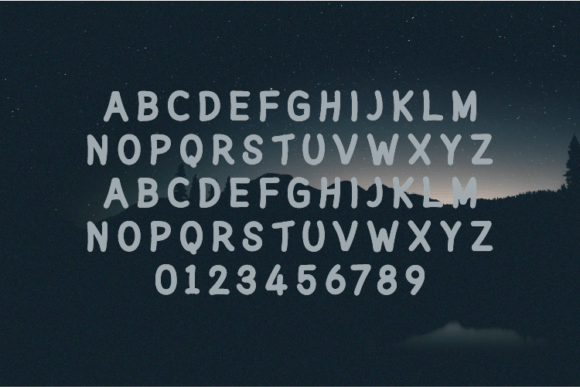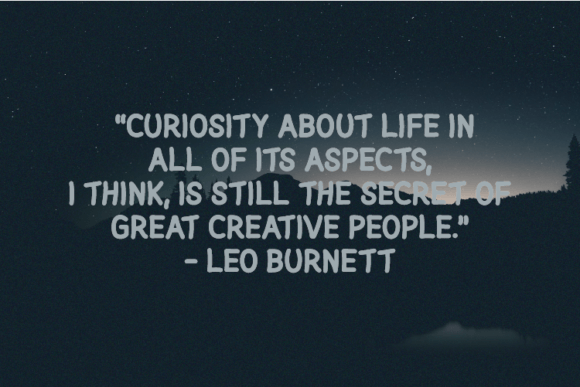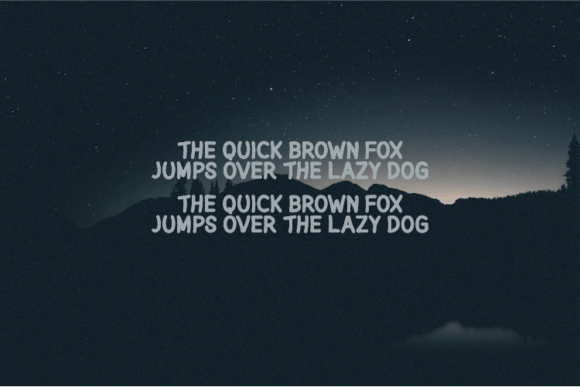
The Euphrosyne Font: A Unique Sans Serif for Creative Projects
I’ll never forget the time I was working on a project, pouring my heart and soul into the design, but struggling to find the perfect font. My client wanted something fresh, yet elegant; something that would make their brand stand out. That’s when I stumbled upon the Euphrosyne font. Its unique, natural sans serif design immediately caught my attention, and I knew I had found what I was looking for. In this article, I’ll share my experience with Euphrosyne, its features, and how to make the most of it in your creative projects.
A Personal Review of Euphrosyne
- ✨ Unique and natural sans serif design
- ✅ No unnecessary node changes, making it truly one-of-a-kind
- 💡 Perfect for quotes, notes, tees, and product design
- 🎨 Highly versatile and adaptable to various design styles
While Euphrosyne is an amazing font, it’s not without its quirks. For instance:
- 🤔 Some users might find the font a bit too simplistic or plain
- ⚠️ Limited availability of stylistic alternates and OpenType features
The Story Behind Euphrosyne
Euphrosyne was designed with the goal of creating a unique, natural sans serif font that would stand out in the world of typography. The designer aimed to preserve the original indentation of each character, making the font truly one-of-a-kind. The result is a font that’s both elegant and playful, perfect for a wide range of creative projects.
| Font Name | Euphrosyne Font |
| Author | Hanna Bie |
Q: What makes Euphrosyne unique?
A: Euphrosyne’s uniqueness lies in its natural sans serif design, created without changing a single node in each character’s indentation.
Q: Is Euphrosyne suitable for body text?
A: While Euphrosyne is a beautiful font, it might not be the best choice for long-form body text. It’s better suited for headings, titles, and short paragraphs.